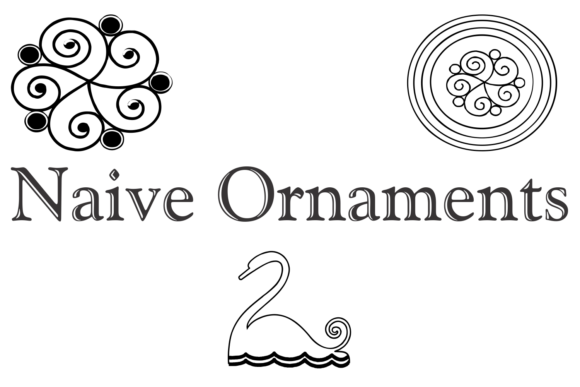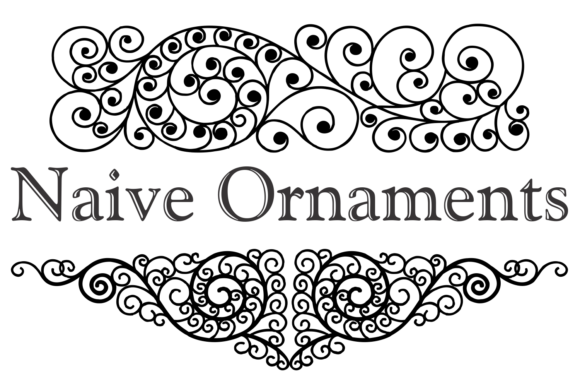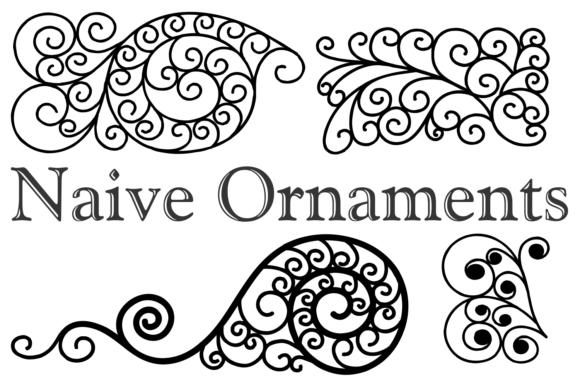
Naive Ornaments Font
About Naive Ornaments Font
The Naive Ornaments collection is a vibrant and colorful assortment of ornaments that comes in a convenient font format. It is a versatile resource that can be used to enhance various arts and crafts projects, books of arts, stationery, publishing materials, and more.
With its wide range of decorative elements, the Naive Ornaments collection offers an array of options to add flair and visual interest to your designs. These ornaments can be used to embellish artwork, create borders, frames, and patterns, or enhance typography with creative flourishes.
One of the great advantages of the Naive Ornaments collection being in font format is the flexibility it provides. You can easily access and utilize the ornaments within any design software or application that supports custom fonts. This makes it convenient for designers to integrate the ornaments seamlessly into their projects and customize them to suit their specific needs.
The colorful nature of the Naive Ornaments collection adds an extra dimension of creativity to your designs. Whether you’re aiming for a playful and whimsical look or a bold and eye-catching composition, the vibrant colors of these ornaments can help you achieve the desired visual impact.
The versatility of this collection allows it to be used in a wide range of applications. From arts and crafts projects to book designs, stationery, and publishing materials, the Naive Ornaments collection adds a decorative touch that elevates the overall aesthetic of your work.
Moreover, the Naive Ornaments collection encourages creativity and allows you to experiment with different combinations and arrangements. You can mix and match the ornaments, layer them, and explore various compositions to create unique and captivating designs that reflect your artistic vision.
In summary, the Naive Ornaments collection is a colorful and versatile assortment of ornaments that adds a touch of creativity and visual interest to your designs. Whether you’re working on arts and crafts projects, books of arts, stationery, or publishing materials, these ornaments offer a wide range of possibilities for enhancing your work. So, unleash your imagination, play with colors and arrangements, and let the Naive Ornaments collection inspire you to create captivating and visually stunning designs.